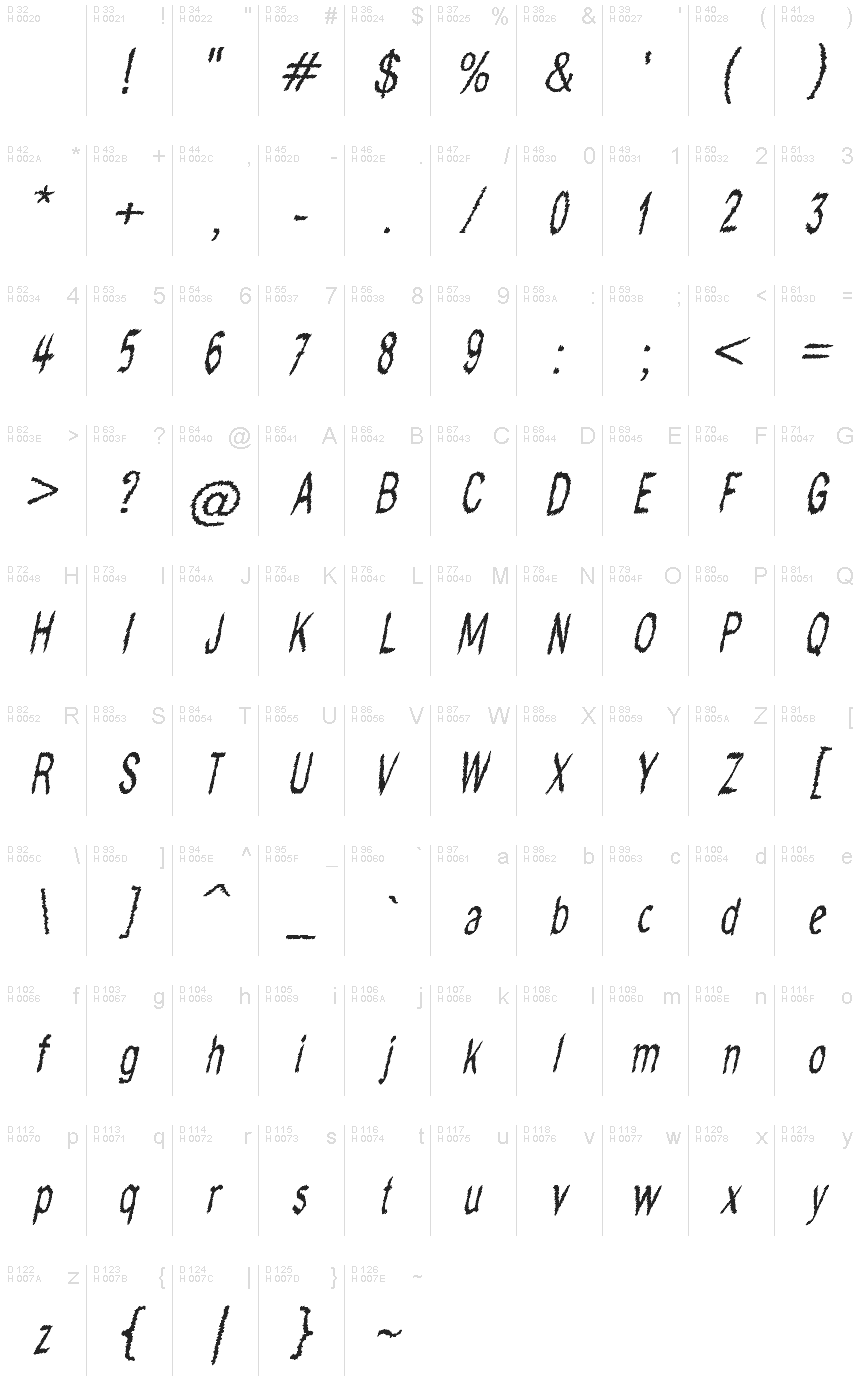
Do Doodle Italic
Do Doodle Italic font by Galdino Otten Fonts is a condensed brush font with an artistic and eye-catching design. The characters display a hand-drawn appearance that imitates real handwriting as closely as possible. A unique sketch-like texture also captures the natural energy of fashion typography. This casual aesthetic adds to the fun but professional and orderly letters that don’t sacrifice style for readability.
Do Doodle Italic is best applied in short texts such as book cover titles, poster headlines, and sports magazine covers. It’s available for small businesses making apparel T-shirts, bags, cups, or other branding. Gratuitous use can be added in logos of fashion products like shampoo bottles or patterns designed before product printing and manufacturing.